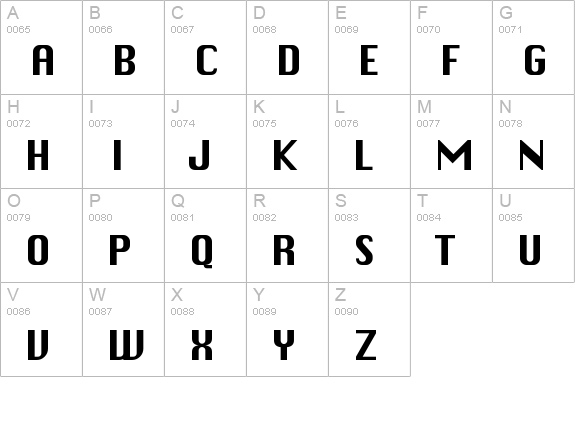
Chicago font is a versatile and stylish typeface that exudes a sense of urban sophistication. With its clean lines and modern aesthetic, Chicago font is perfect for a wide range of design projects, from logos to branding to marketing materials. This font features a sleek and contemporary look that will elevate your designs to the next level. The best part? Chicago font is completely free to download at FontsMarket.com. This means you can easily access this high-quality font without breaking the bank. Whether you are a professional designer or a hobbyist looking to enhance your projects, Chicago font is a fantastic choice that won't cost you a thing. Download Chicago font today and bring a touch of modern elegance to your designs.